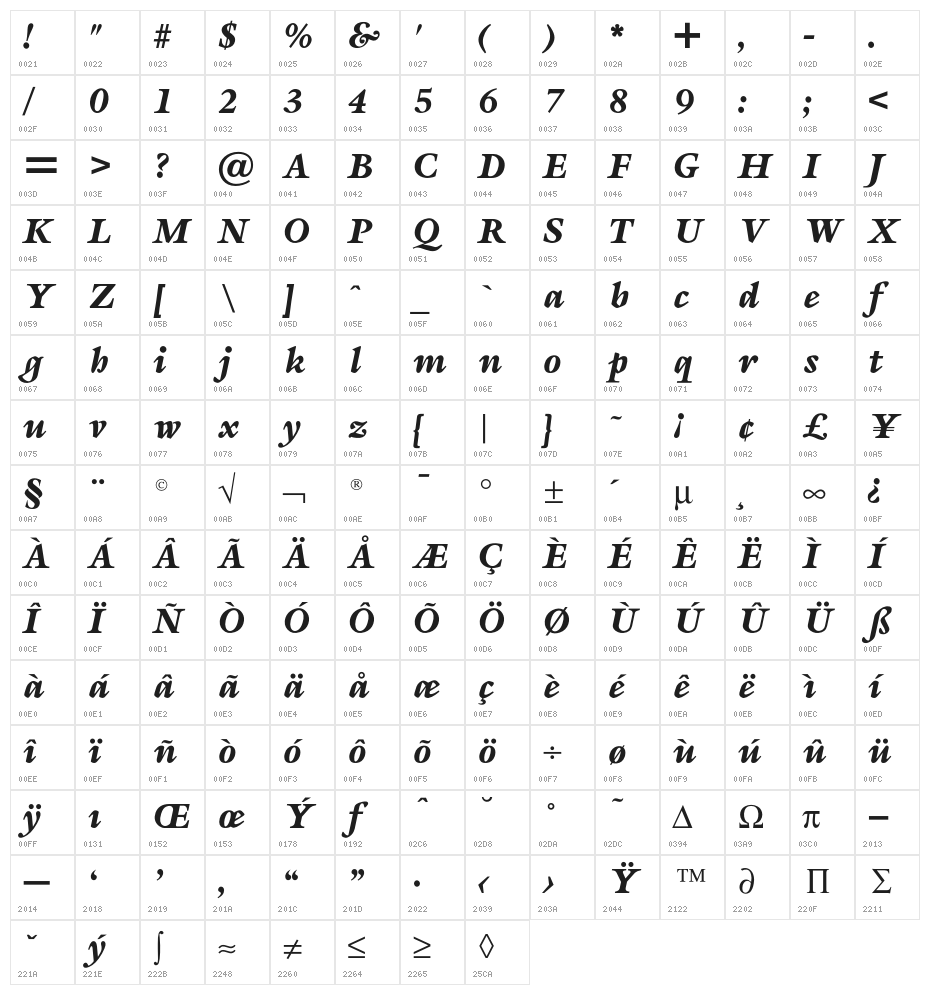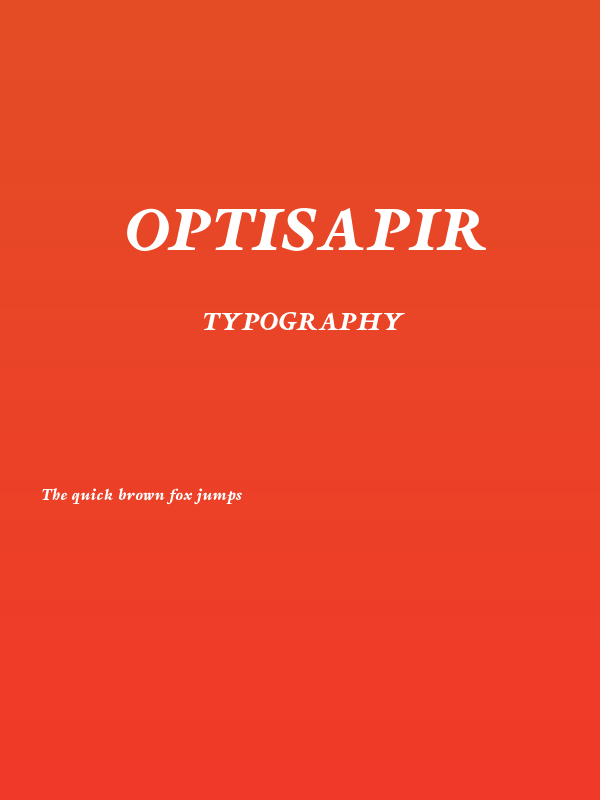
OPTISapir Font
| Caso d'uso | Headlines, Logos, Invitations |
| Progetti proposti | Ideal for wedding invitations, formal event programs, luxury brand logos, and editorial design. |